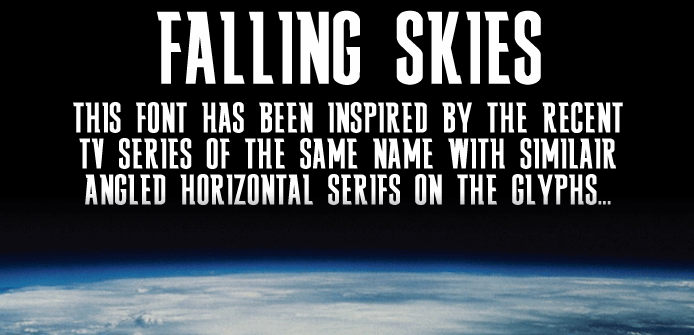
Created to pay homage to the excellent Steven Spielberg series Alien Invasion drama by TNT called Falling Skies, I looked everywhere for this font and couldn't find it on web so I decided to make this fan-font version based on the poster logo. This font has been created as FREE for personal use for a commercial license please visit our Etsy store @ http://etsy.me/2evOg91 |